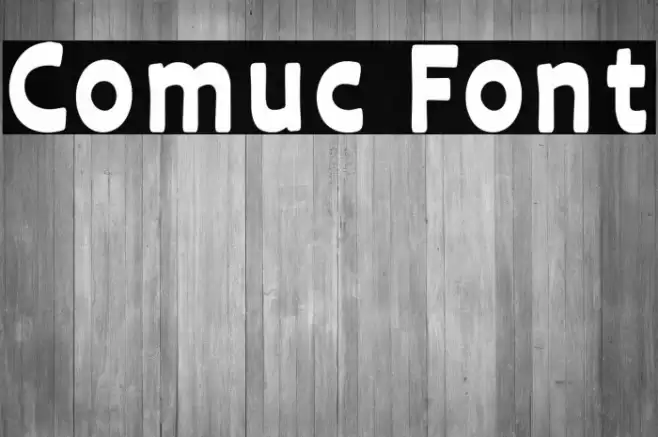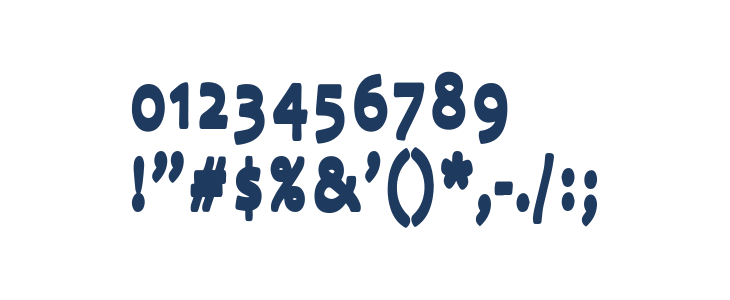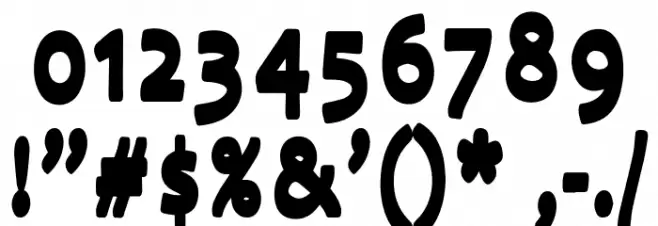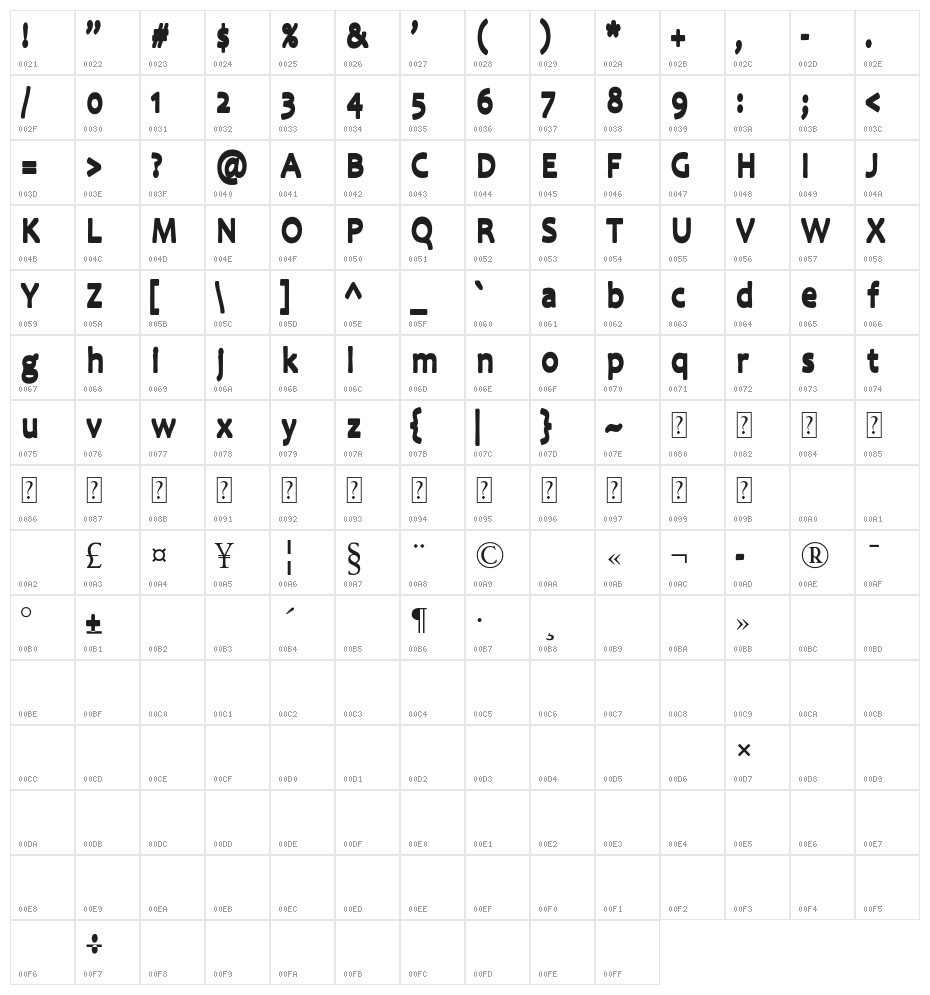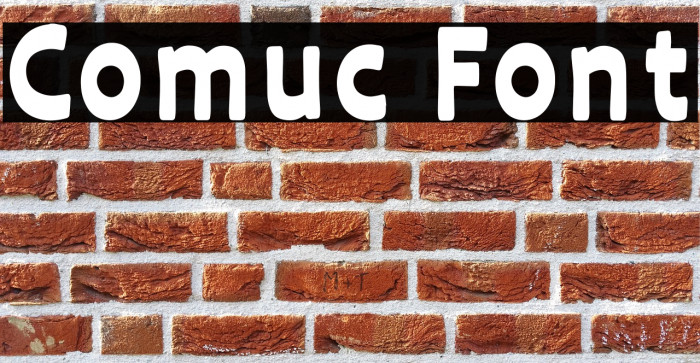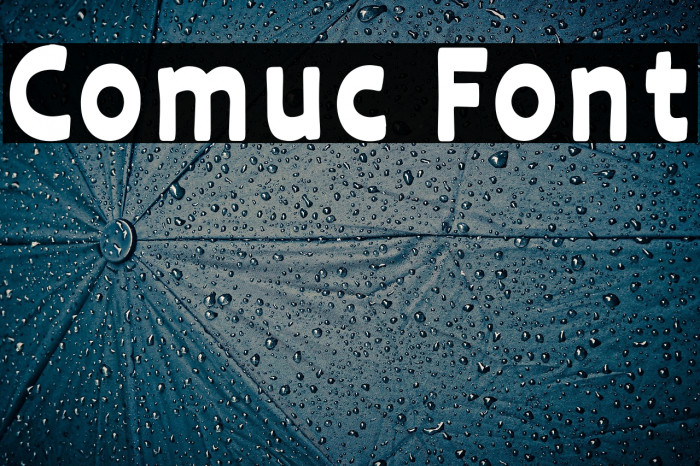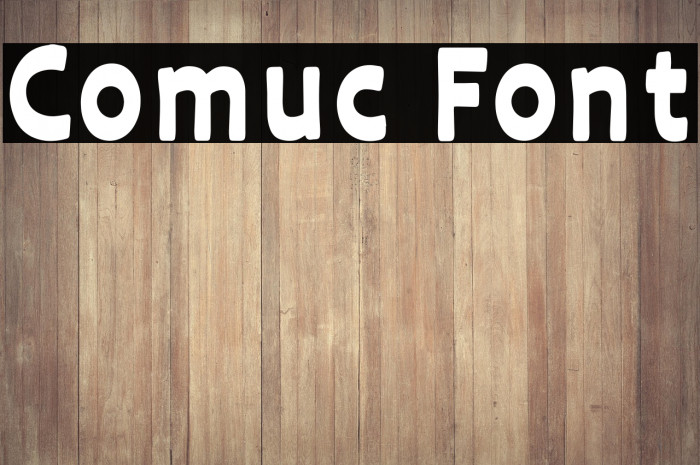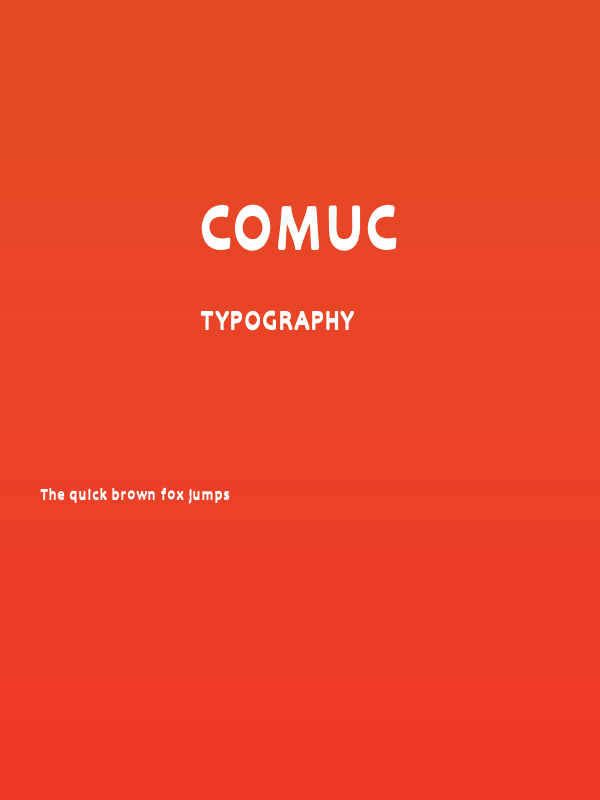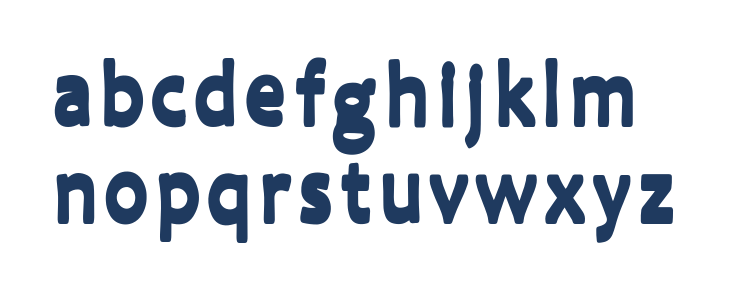
Comuc Font
Comuc Description
This font features a playful and bold design with rounded edges and a slightly uneven stroke, giving it a hand-drawn appearance. The characters are thick and substantial, making them highly legible and impactful. The uppercase and lowercase letters maintain a consistent style, with a whimsical touch that adds personality. Numbers and special characters follow the same design principles, ensuring uniformity across all glyphs. This font's unique style is perfect for projects that require a fun and approachable aesthetic.
A playful, bold font with rounded edges and a hand-drawn feel from Regular fonts.
- Proposed Projects: Ideal for children's books, playful branding, casual posters, and creative social media graphics.
- Overall Style: Playful